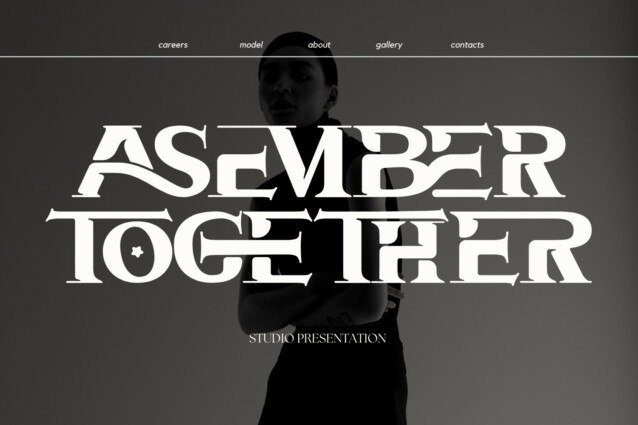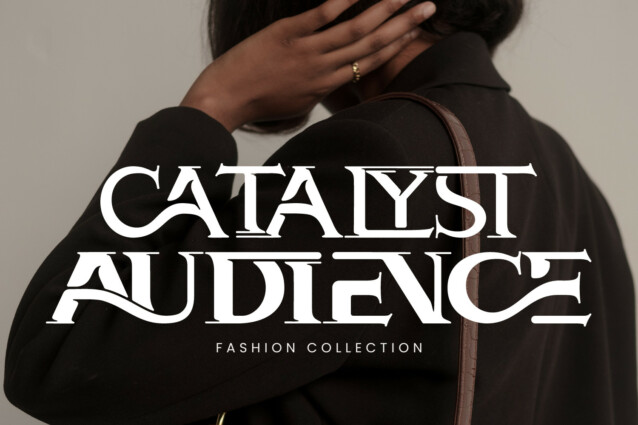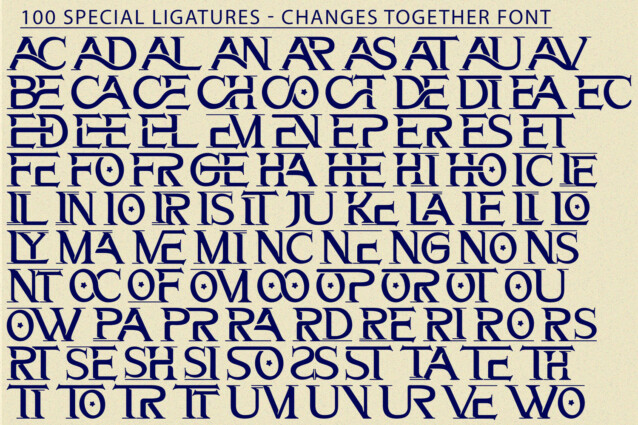
Changes Together Font
Changes Together Font Display Serif Font – Classic Adventure Fantasy Pirate Game Font. A serif modern and classic typeface that has own unique style & modern look. This typeface is perfect for an elegant & luxury logo, book or movie title design, fashion brand, magazine, clothes, lettering, quotes, and so much more.
CHANGES TOGETHER was built with OpenType features and includes 100 ligatures, alternate, numbers, punctuation, and it also supports other languages.
AC AD AL AN AR AS AT AU AV BE CA CE CH CO CT DE DI EA EC ED EE EL EM EN EP ER ES ET FE FO FR GE HA HE HI HO IE IC IL IN IO IR IS IT JU KE LA LE LI LL LO LY MA ME MI NC ND NE NG NO NT NS OC OF OM ON OO OP OR OT OU OW PA PR RA RD RE RI RO RS RT SE SH SI SO SS ST TA TE TH TI TO TR TT UM UN UR VE WI WO